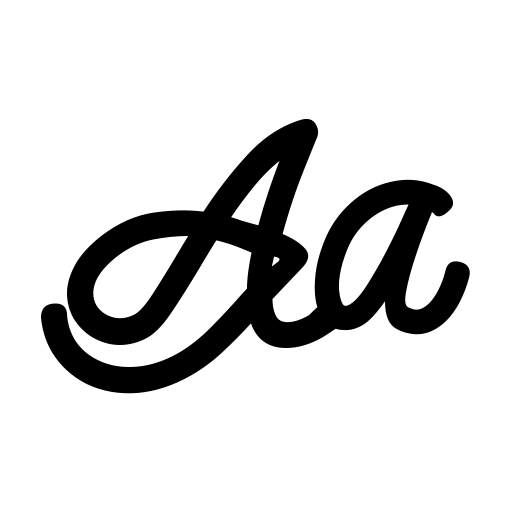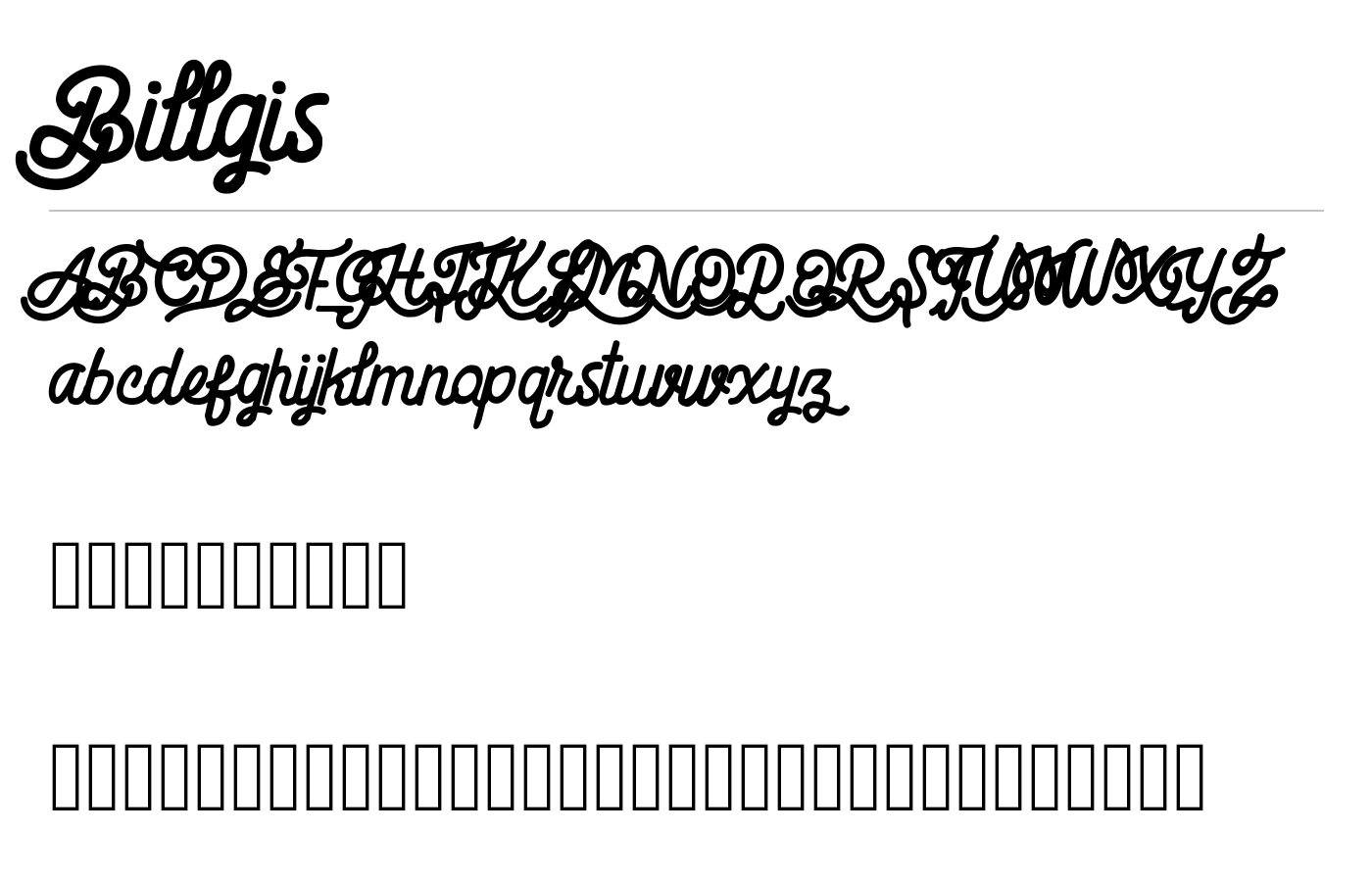
Billgis Font is a bold, cursive script that combines strong, rounded strokes with smooth, flowing lines, giving it a lively and energetic personality. Its connected letterforms and distinctive swashes make it ideal for logos, branding, and headlines where a friendly yet confident handwritten style is desired. This font works especially well for creative and casual designs looking to convey approachability with a touch of vintage charm.
Billgis Font
About Billgis Font
| Font family | Billgis Font |
| Designer | Banyumili Studio |